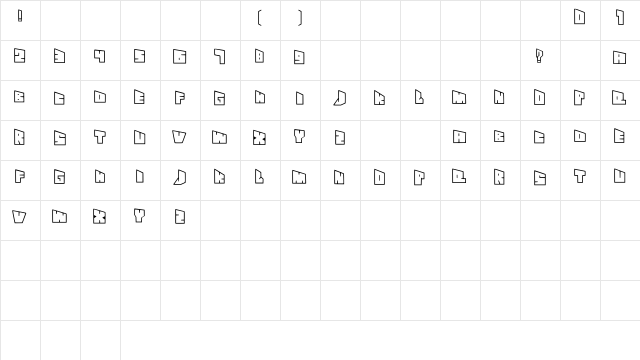
SeeThroughSlantyFont Medium
Design Context for SeeThroughSlantyFont Typeface
SeeThroughSlantyFont trades polish for personality, using distressed and eroded forms to bring grit and attitude to creative work.
Suited to punk-influenced zines, underground music branding, streetwear, and raw, anti-corporate design.